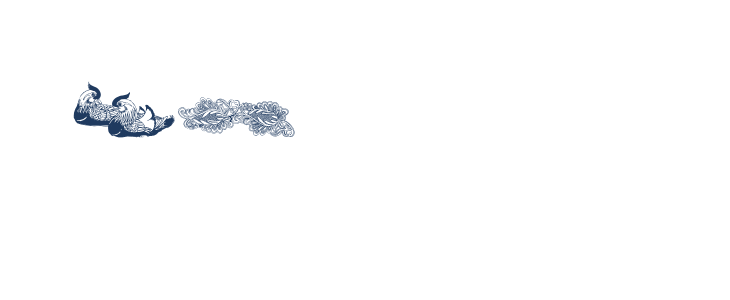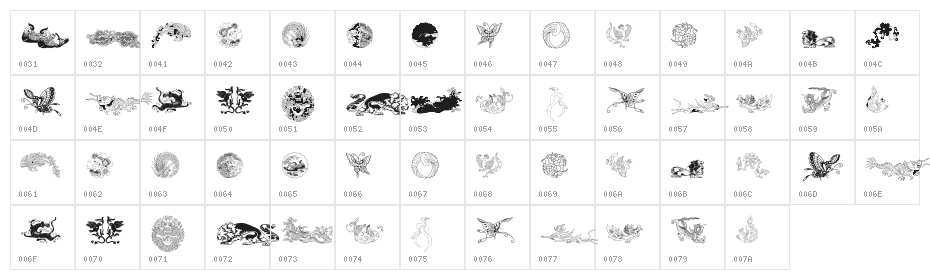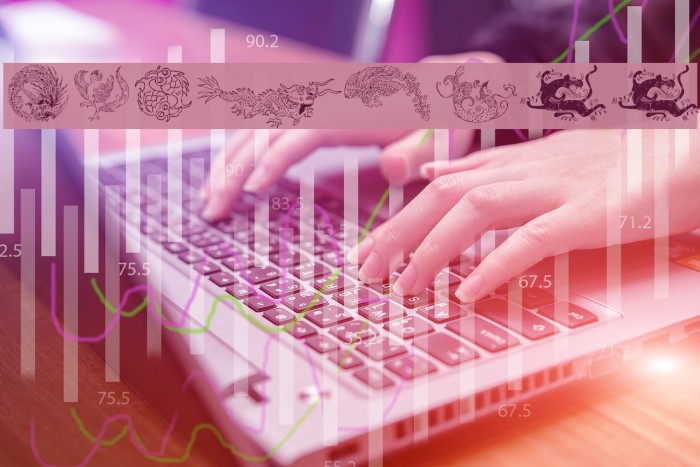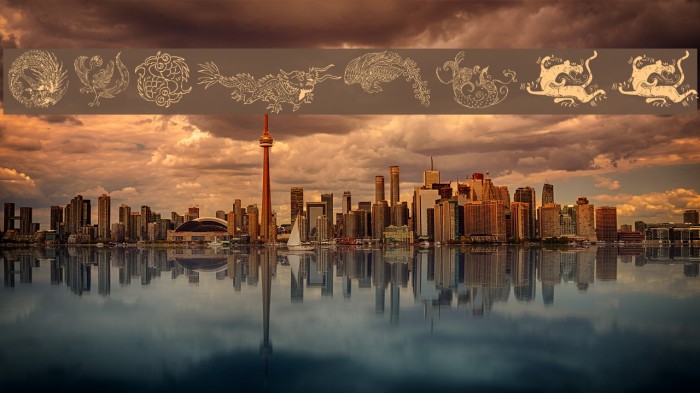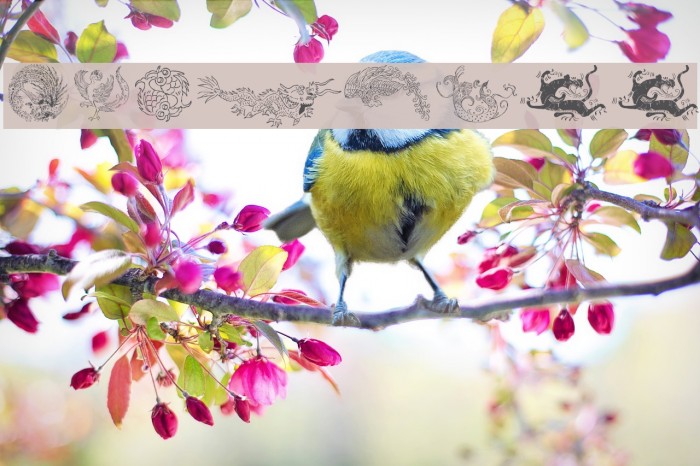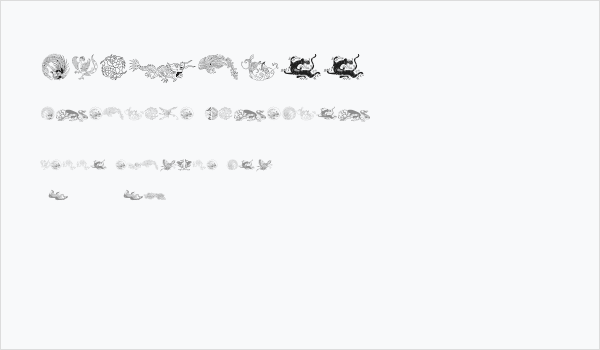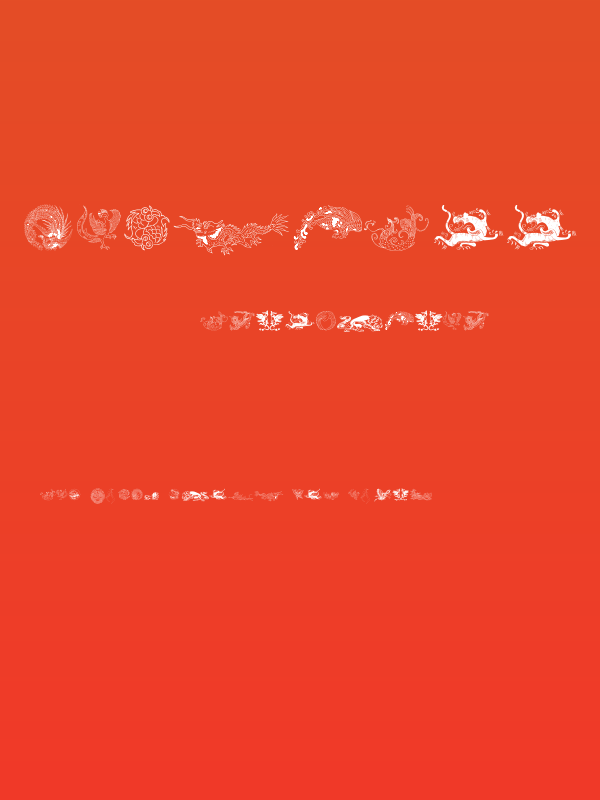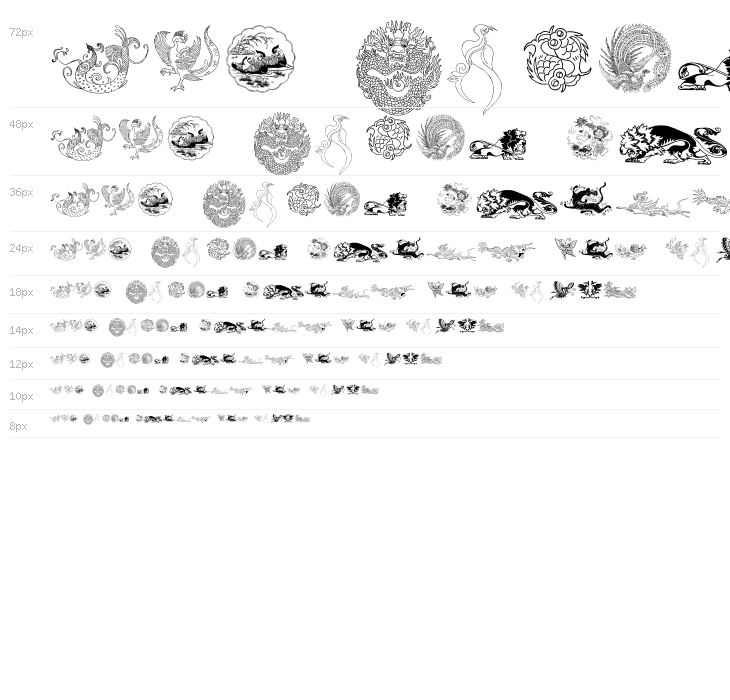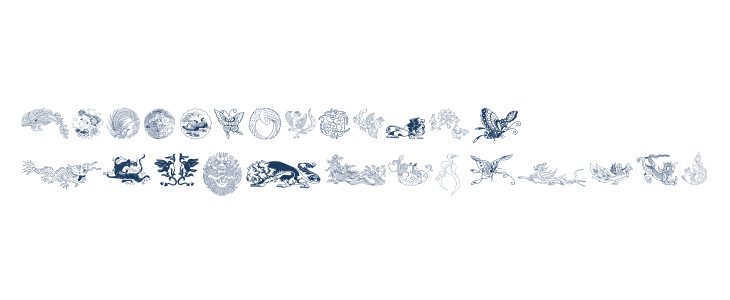
Chinatoo Font
Chinatoo Description
Highly decorative set of intricate illustrations featuring animals, florals, and ornamental motifs, each glyph is a unique pictorial design rather than a traditional letterform.
Overall StyleDecorative, Vintage
Use CaseDecorative elements, embellishments, borders, not for body text.
Proposed ProjectsInvitations, certificates, decorative borders, vintage-themed designs, scrapbooking.